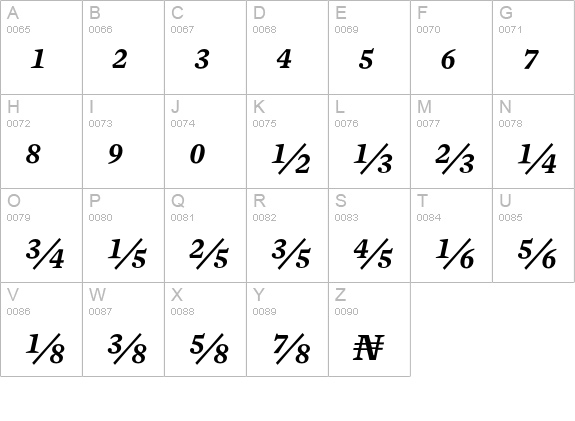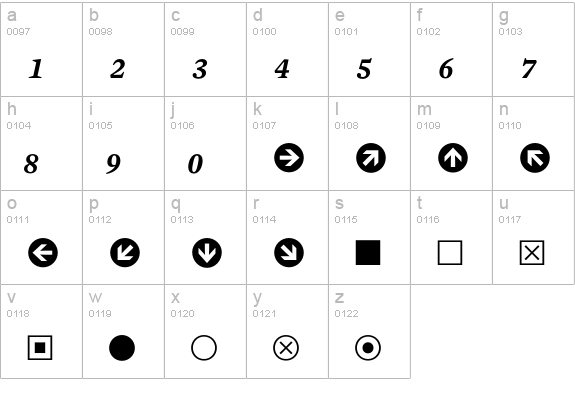
Mercury Numeric G1 Semi Italic Font Details
Mercury Numeric G1 Semi Italic is a distinctive, italic variant in the Mercury typeface family \xE2\x80\x94 well suited to design and typography projects.
The Mercury Numeric G1 Semi Italic font is a sleek and modern typeface that exudes elegance and sophistication. Its semi-italic design adds a touch of flair and personality to any project, making it perfect for use in both digital and print media. The clean lines and sharp angles of this font make it ideal for conveying a sense of professionalism and efficiency. Best of all, the Mercury Numeric G1 Semi Italic font is completely free to download at FontsMarket.com. Whether you're working on a business presentation, a creative project, or a personal design, this versatile font is sure to make a statement. Download it today and add a touch of style to your next project!